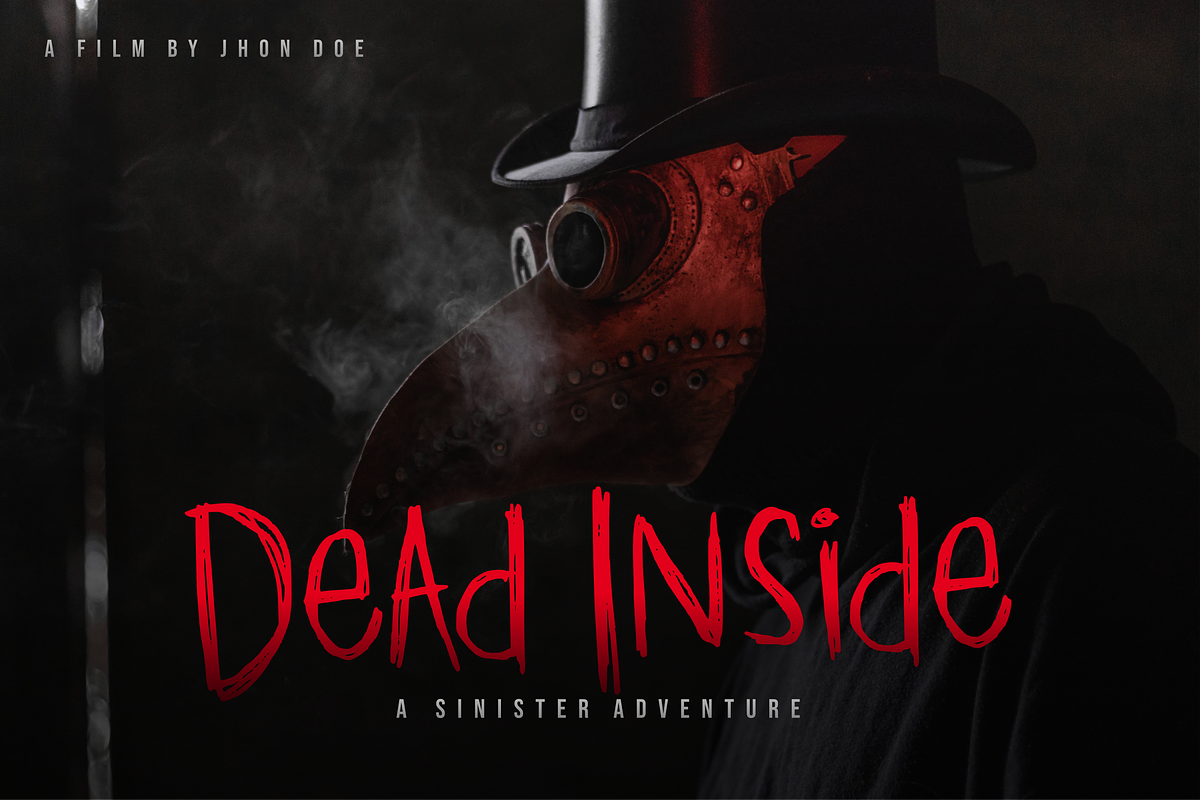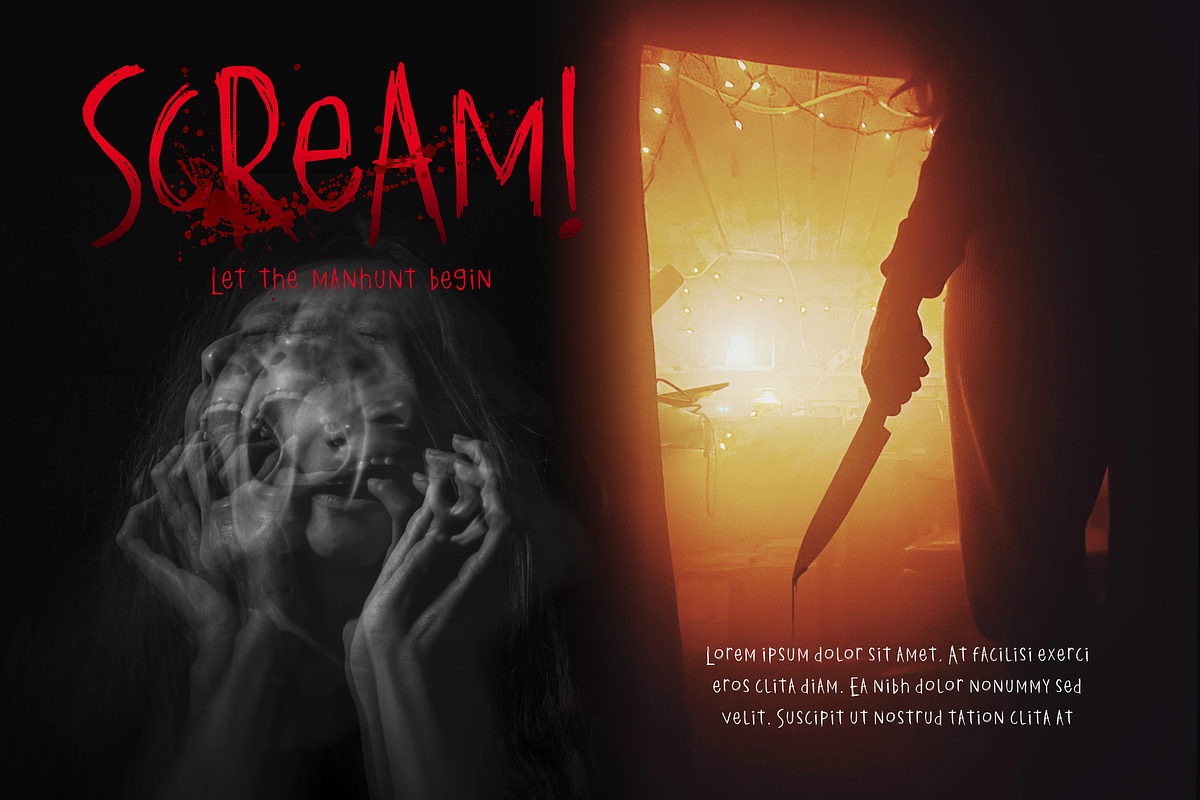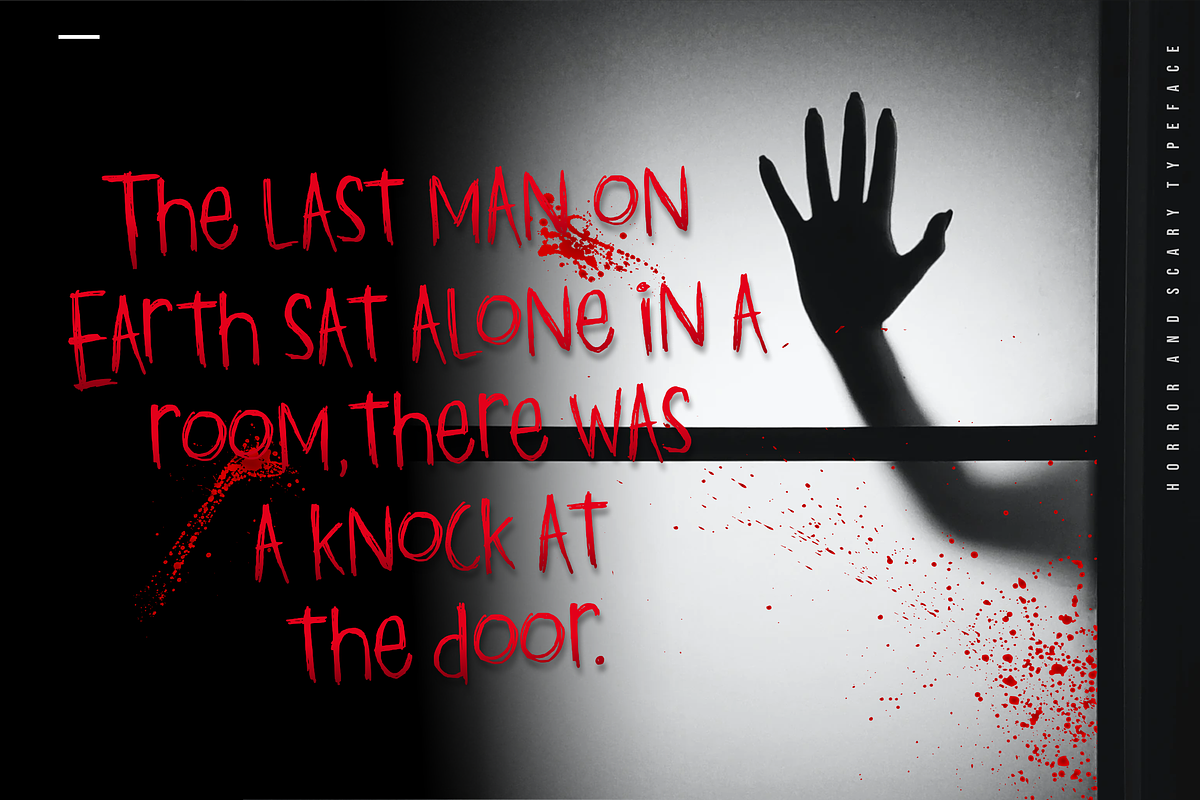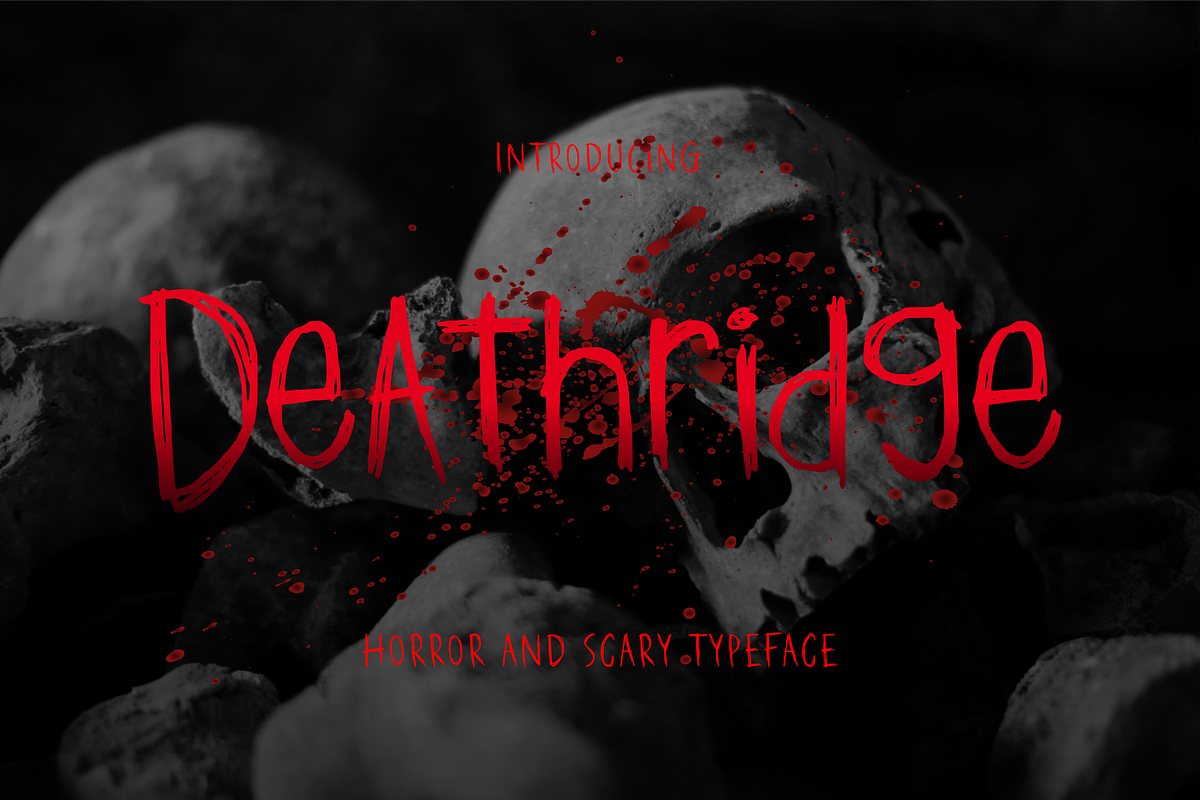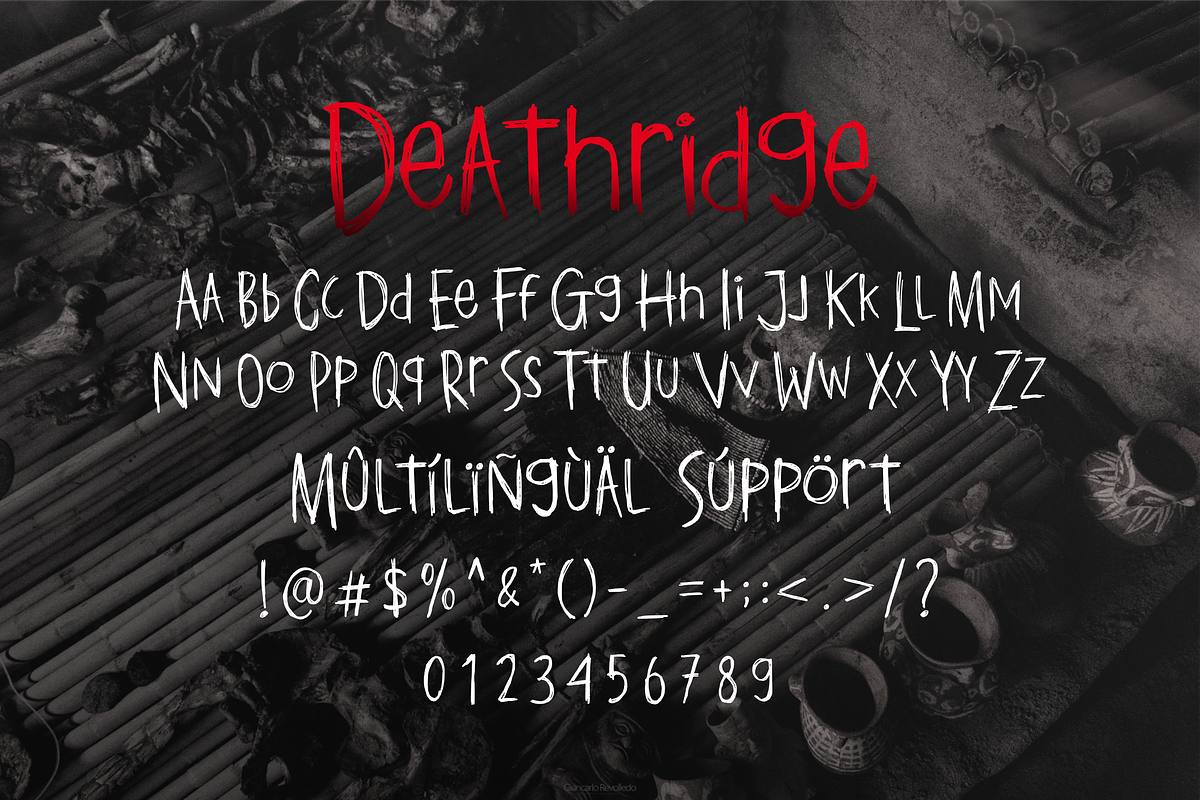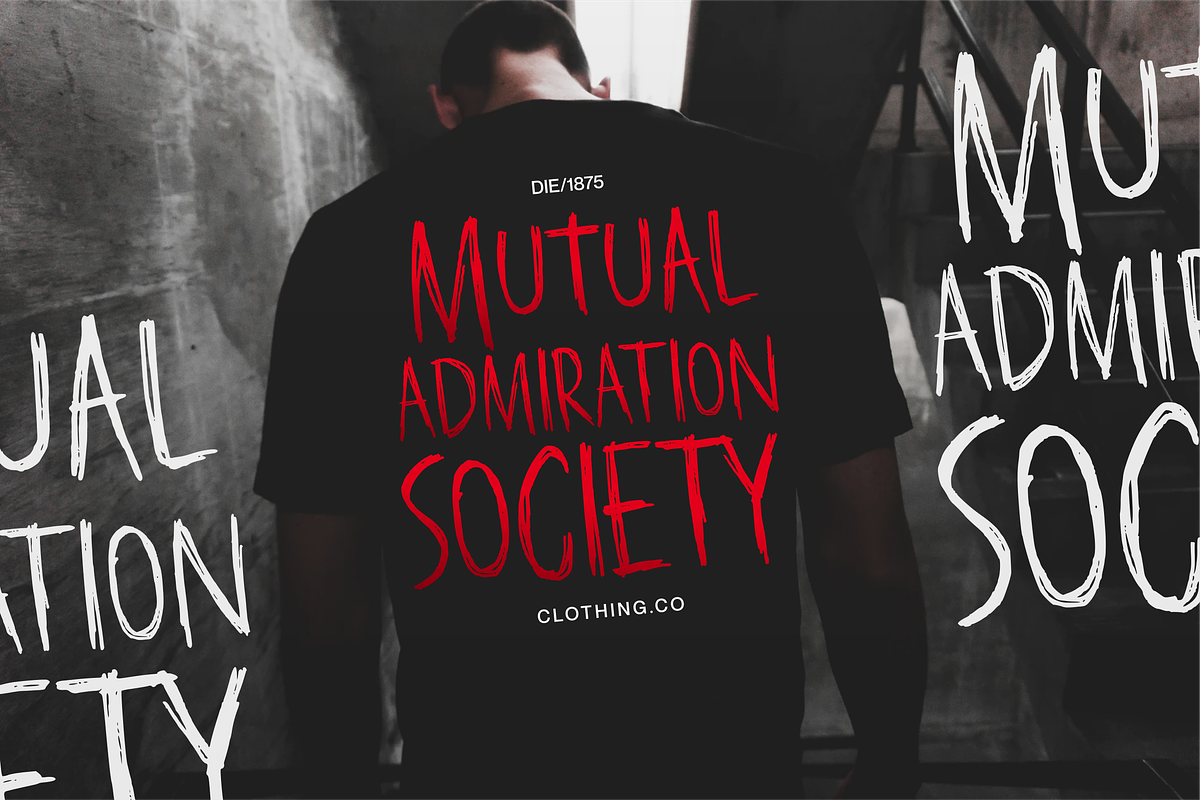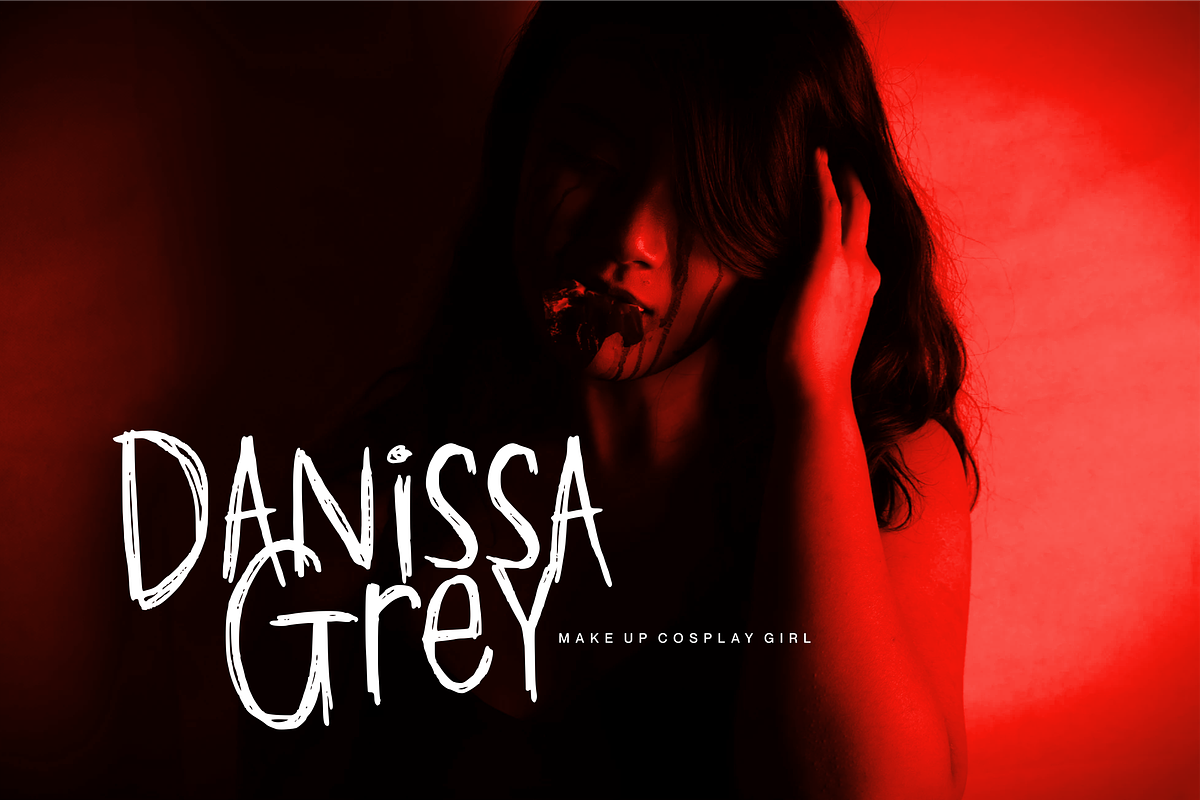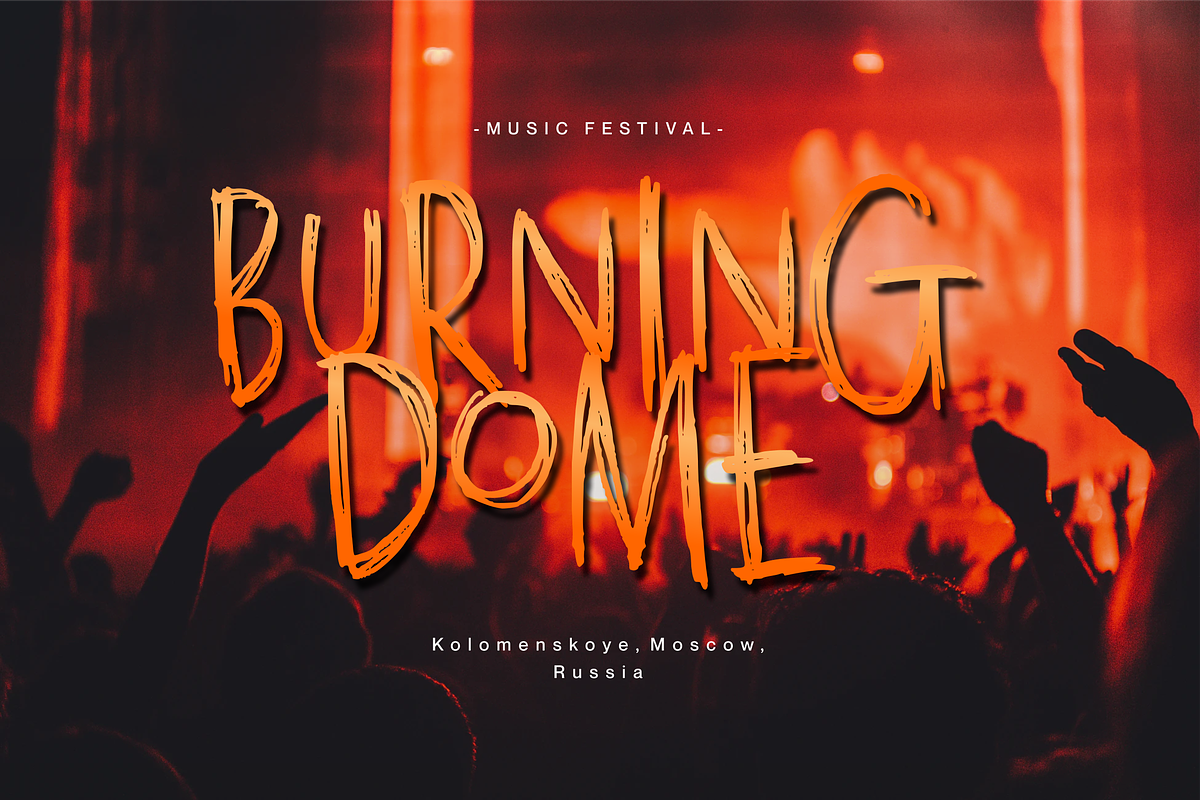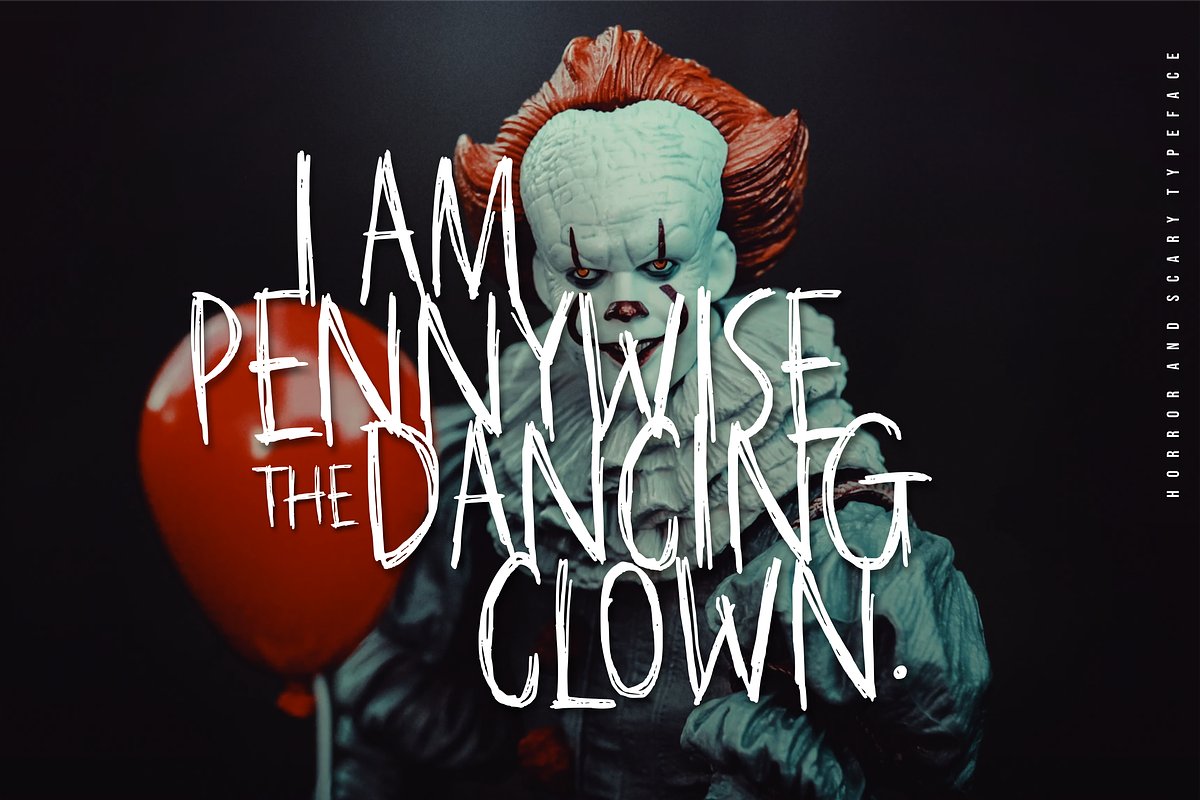
Deathridge Font
Proudly Present, Deathridge
Deathridge is a Horror and Scary Typeface.
Deathridge is perfect for product packaging, branding project, megazine, social media, wedding, or just used to express words above the background.